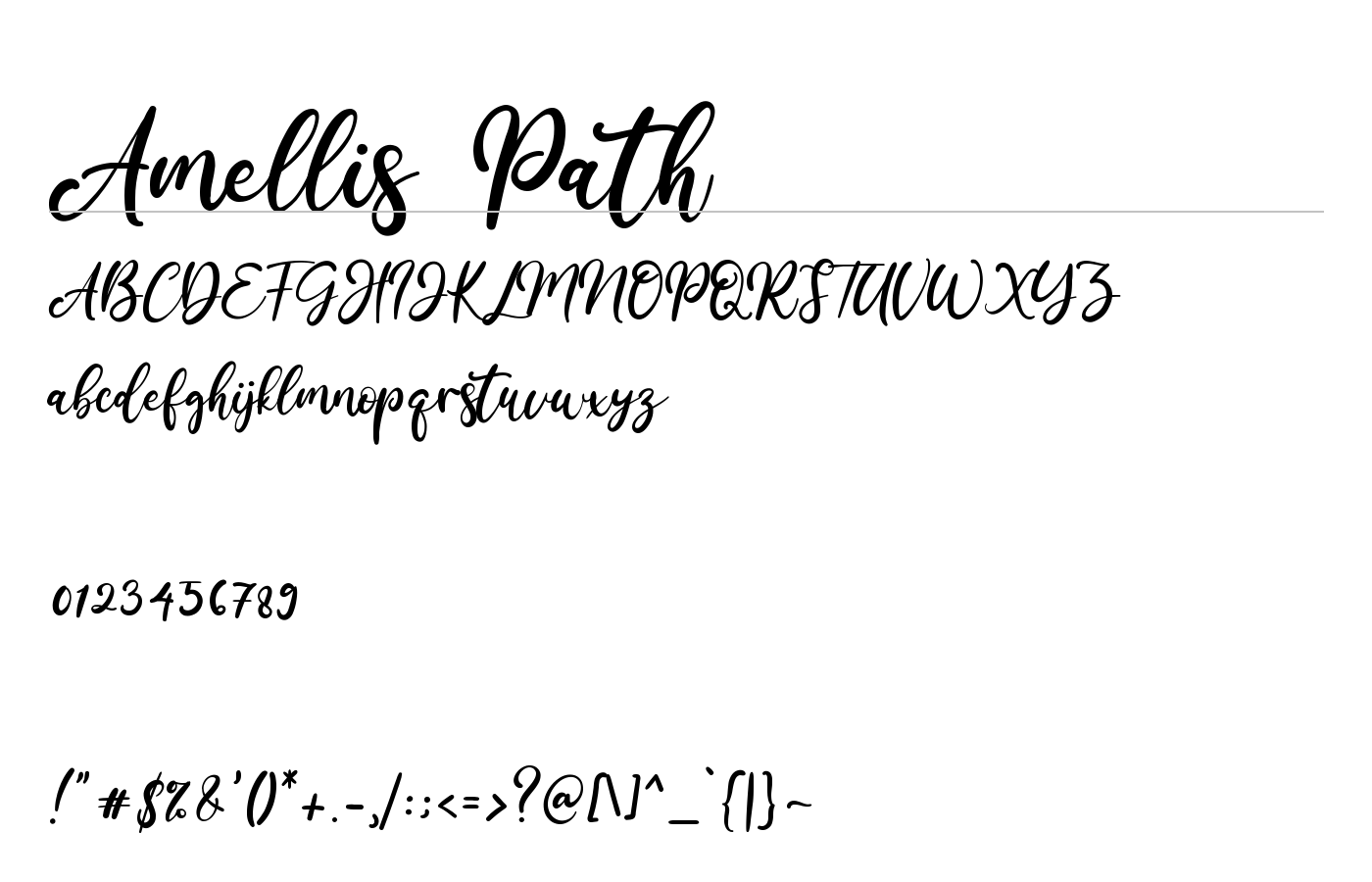
Amellis Path is a lively, script-style font that blends elegance with a hand-crafted feel. Its smooth, flowing strokes and moderate contrast create an approachable yet refined look, perfect for adding a personal, artistic touch to invitations, branding, and lifestyle projects. This font shines in decorative uses where charm and warmth are key.
Amellis Path Font
About Amellis Path Font